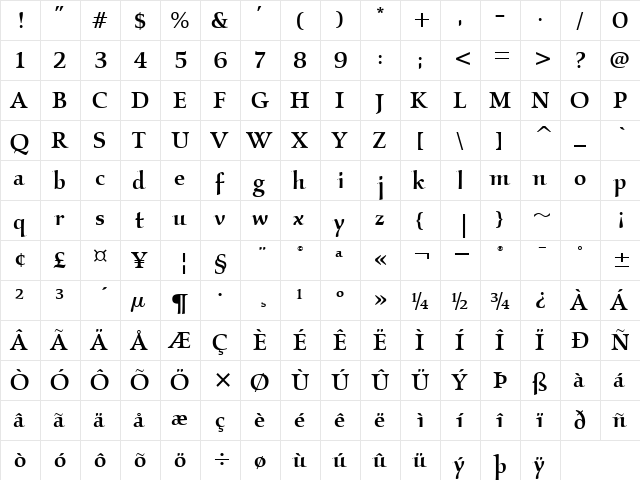
KallosMdITC TT Medium Font Preview
KallosMdITC TT Medium
KallosMdITC TT Medium Font Details
Design Context for KallosMdITC TT Typeface
KallosMdITC TT takes a measured approach to typography — its balanced proportions and neutral character make it a reliable workhorse for both digital and print work.